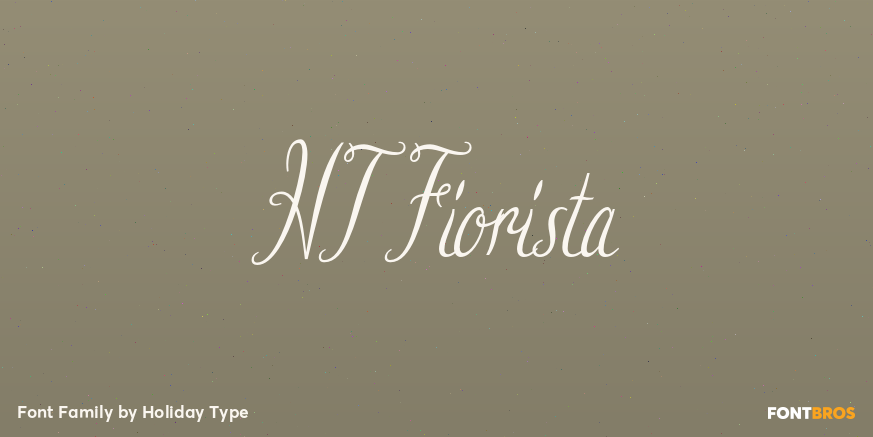
HomeFont BrosHandwrittenHT Fiorista HandwrittenScripts: FormalScripts: Casual HT Fiorista FacebookXPinterestWhatsApp 1 of 1 About HT Fiorista Retro script based on shopfront lettering, wallpaint advertisements in Italy around 1950s.  DOWNLOAD ON FONT BROSThis font is sold and delivered by Font Bros. Font Canyon may earn a commission if you buy through this link. People also explored Steel Hammer Pro Font Yellena Font Amillina Font Adoorably Font Kalia Monogram Font Honeyloops Font Bluemoon Font Sandy Font Silver Night Font 328 0 TagsHT Fiorista Font Previous articleHoneydropNext articleSwallowtail LEAVE A REPLY Cancel reply Comment: Please enter your comment! Name:* Please enter your name here Email:* You have entered an incorrect email address! Please enter your email address here Website: Save my name, email, and website in this browser for the next time I comment. Personal Use Free Casual Personal Use Free Read more about this font I Am Exceptional Personal Use Free Read more about this font Amelline Personal Use Free Read more about this font Lanilla Personal Use Free Read more about this font BLOG Best Fonts for YouTube Videos: Make Your Thumbnails Stand Out Best Fonts for YouTube Videos: Make Your Thumbnails Stand Out Choosing the right font can make a massive difference in how your YouTube videos perform.... The 10 Best Handwriting Fonts to Add Personality to Your Designs Best Fonts for T-Shirt Design – Top 2025 Picks Modern Sans-Serif Fonts That Brands Love in 2025